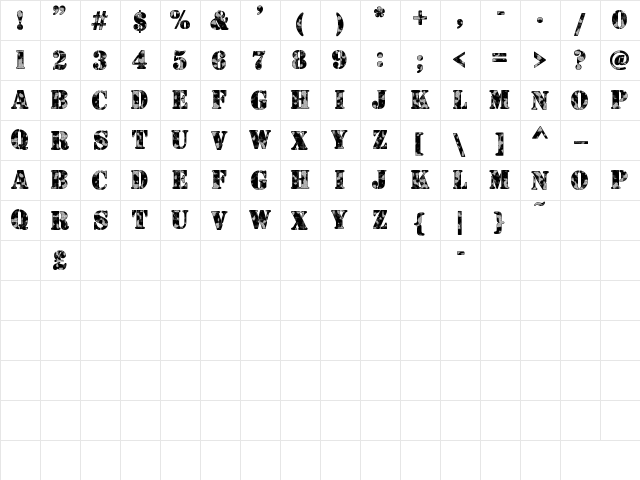
Camouflage Woodland Woodland
Design Context for Camouflage Woodland Typeface
Camouflage Woodland has the no-nonsense character of military stencilling and tactical signage, projecting authority and directness.
A strong choice for security brands, outdoor gear, and high-stakes visual communication.
Pro Tip: Try Camouflage Woodland in all-caps for the most authentic military signage feel. It pairs well with stark, minimal layouts and muted colour palettes.